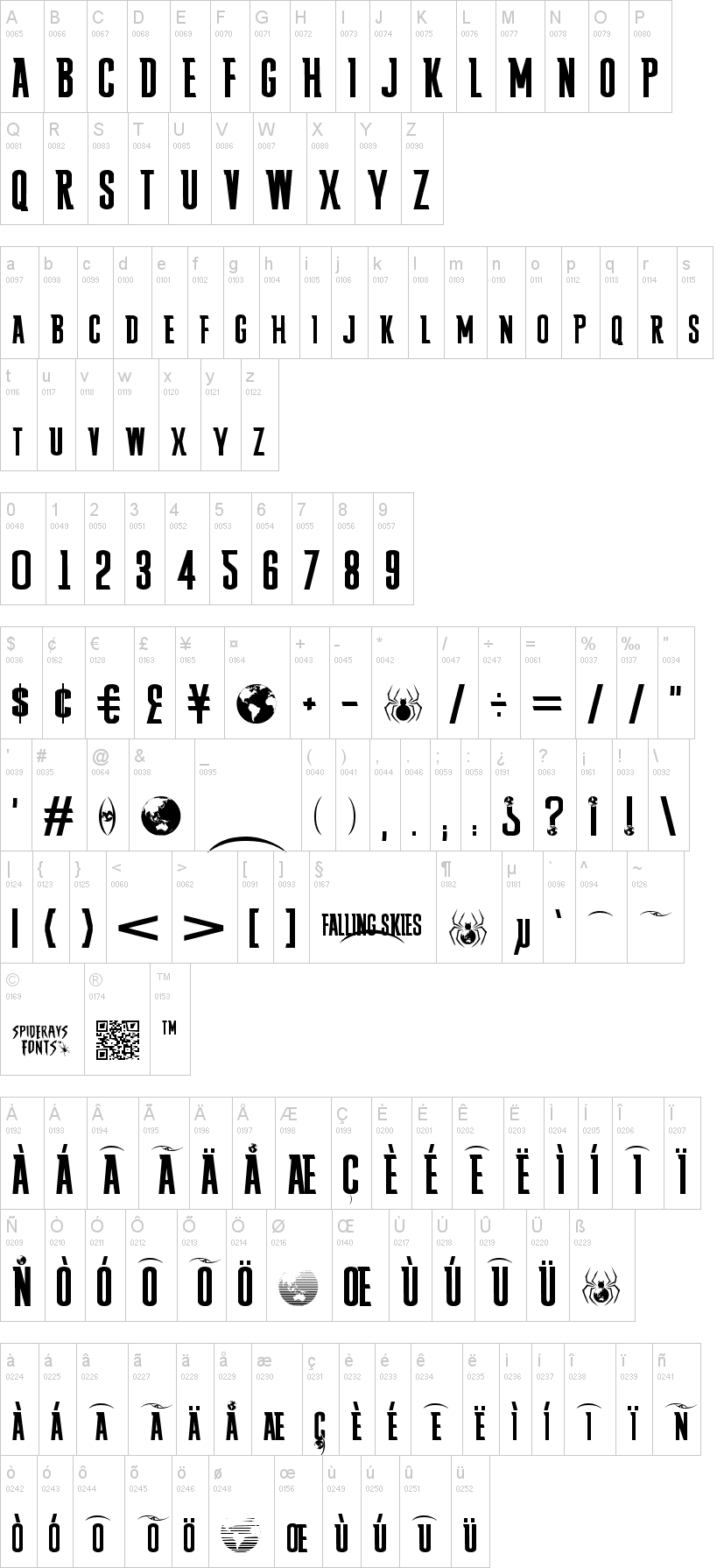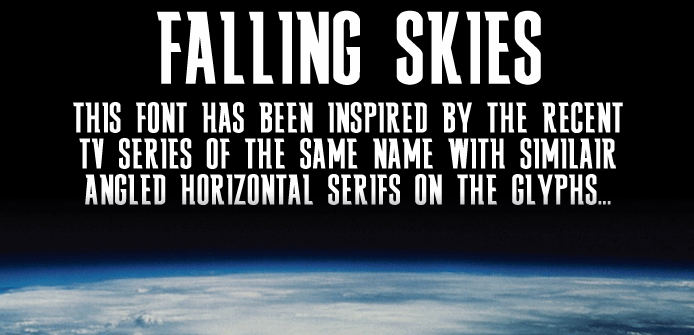
Note of the authorCreated to pay homage to the excellent Steven Spielberg series Alien Invasion drama by TNT called Falling Skies, I looked everywhere for this font and couldn't find it on web so I decided to make this fan-font version based on the poster logo.